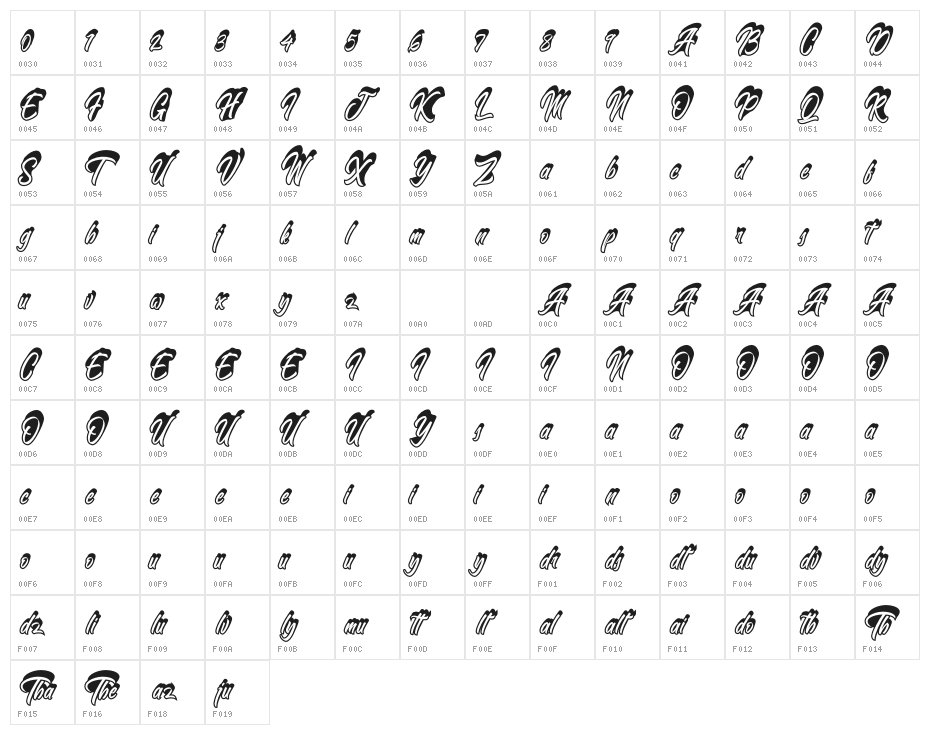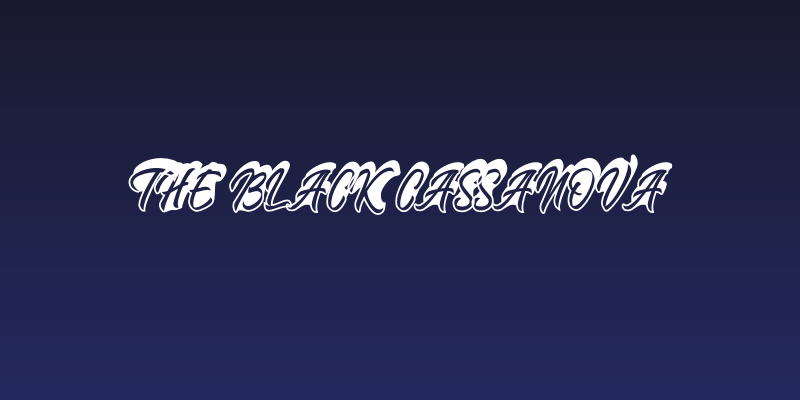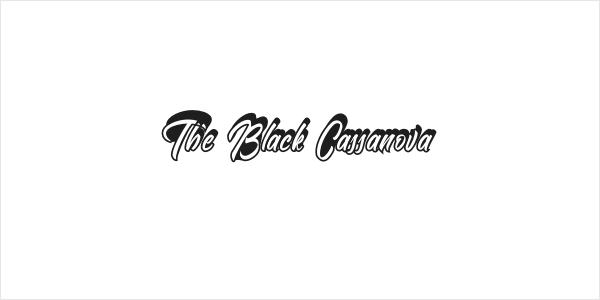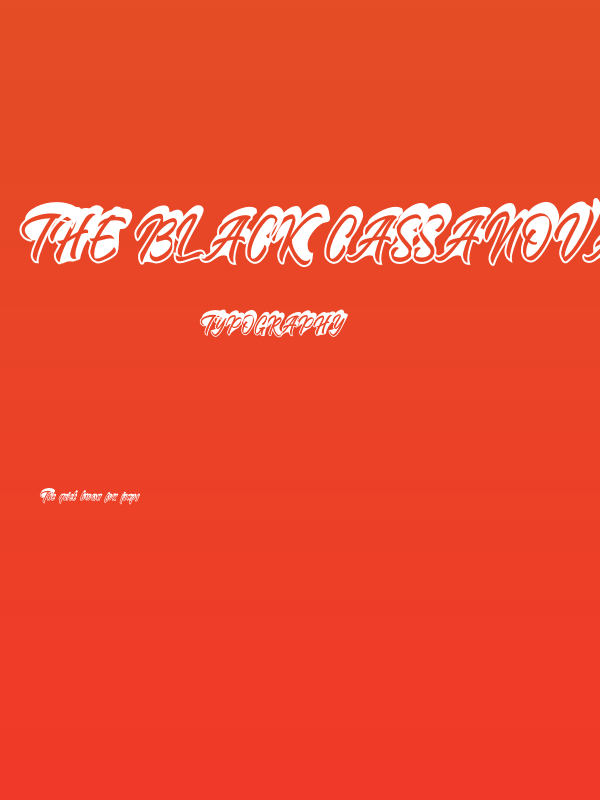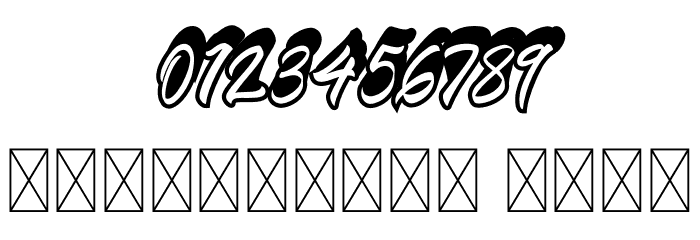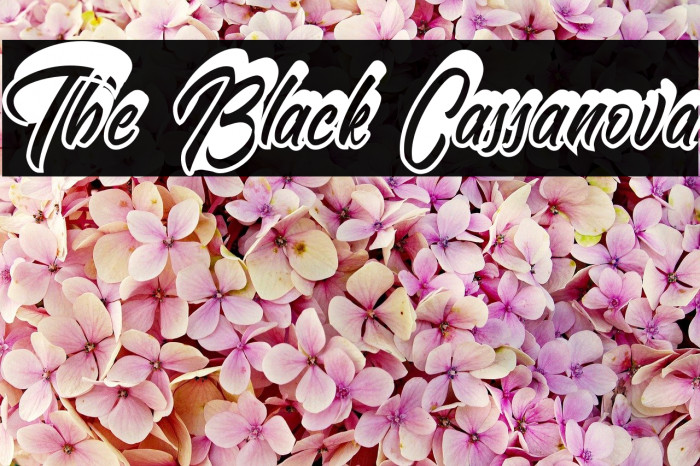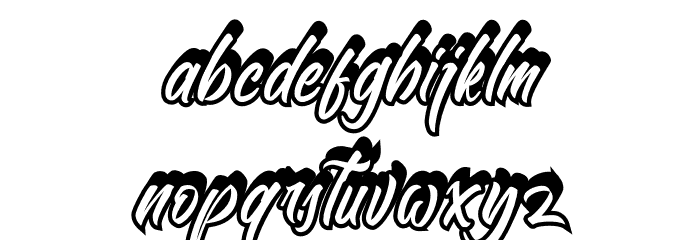
The Black Cassanova Font
The Black Cassanova Description
This font features a bold, cursive style with a strong, dynamic presence. The characters are interconnected, creating a fluid and continuous flow. The strokes are thick and consistent, with a slight slant that adds to its energetic and expressive nature. The uppercase letters are particularly elaborate, with sweeping curves and flourishes that enhance its decorative appeal. The lowercase letters maintain the same boldness and fluidity, ensuring readability while retaining the font's distinctive style. Numbers and special characters are designed to match the overall aesthetic, making this font versatile for various uses.